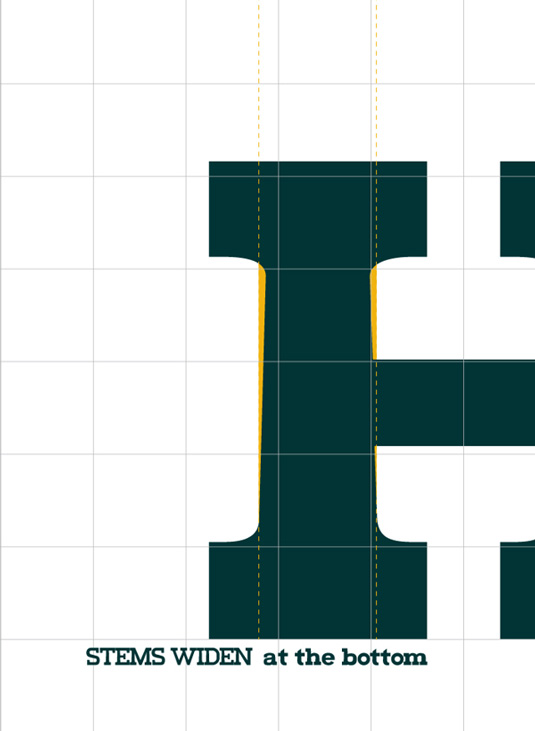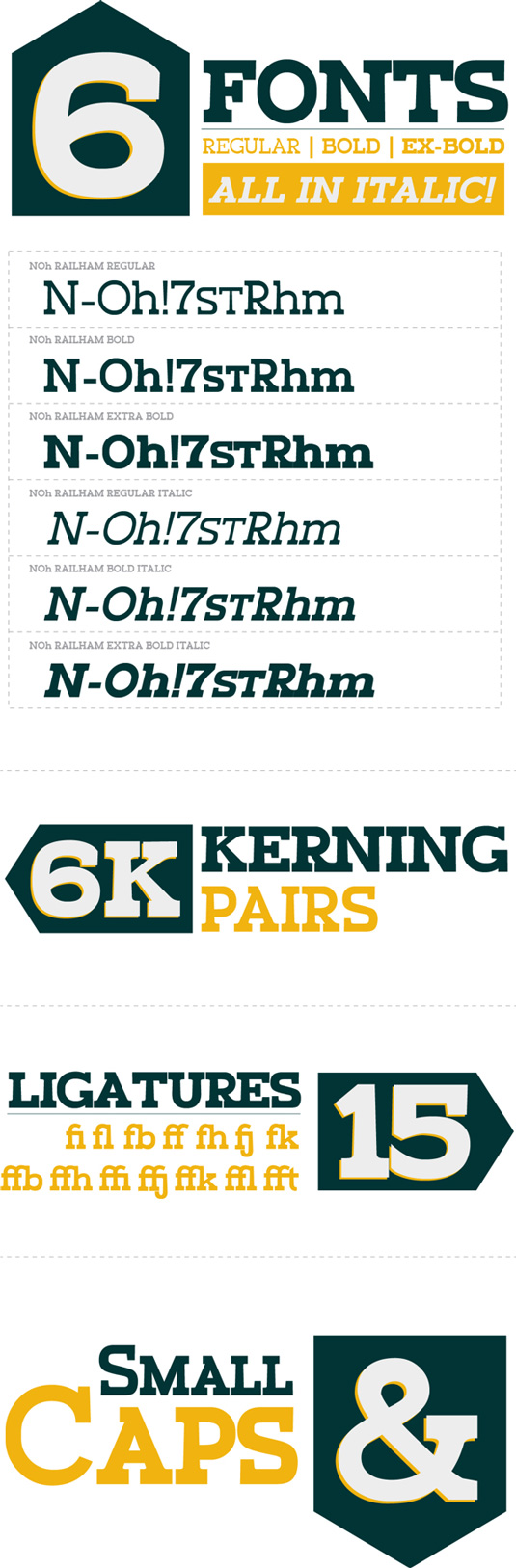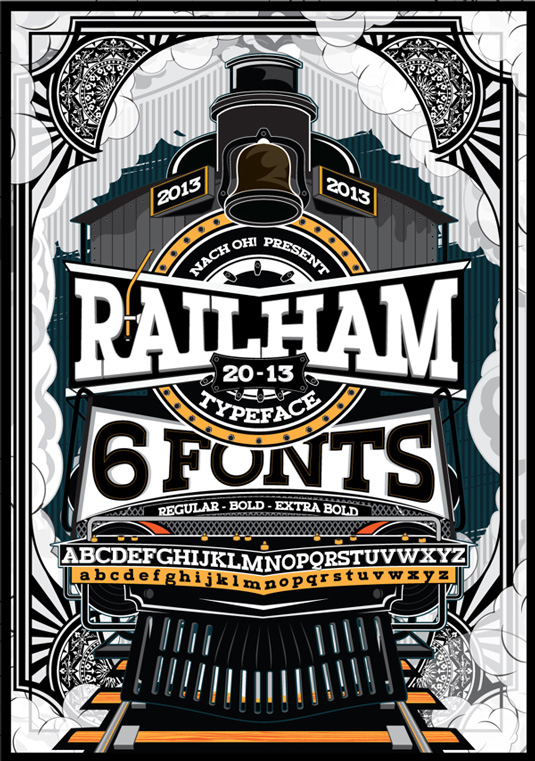
Font of the day: RailHam
RailHam by Nach Oh!
Typographer and illustrator Nach Oh! developed today's font Railham. "Inspired by the tracks of a railroad, with stems that narrow at the top, this typeface, like a train looks to the future without forgetting the fundamentals of a long road, detaining in the detail of every element to form a strong, fast and versatile family," the designer explains.
"Retaking and uniting essential concepts of typography, rounded serifs with especially wide base, forms and counterblocks that complement together, RailHam typeface neatly adapts to any topic, besides being practical and readily legible in small and large formats, joining a select list of modern slab serif fonts.